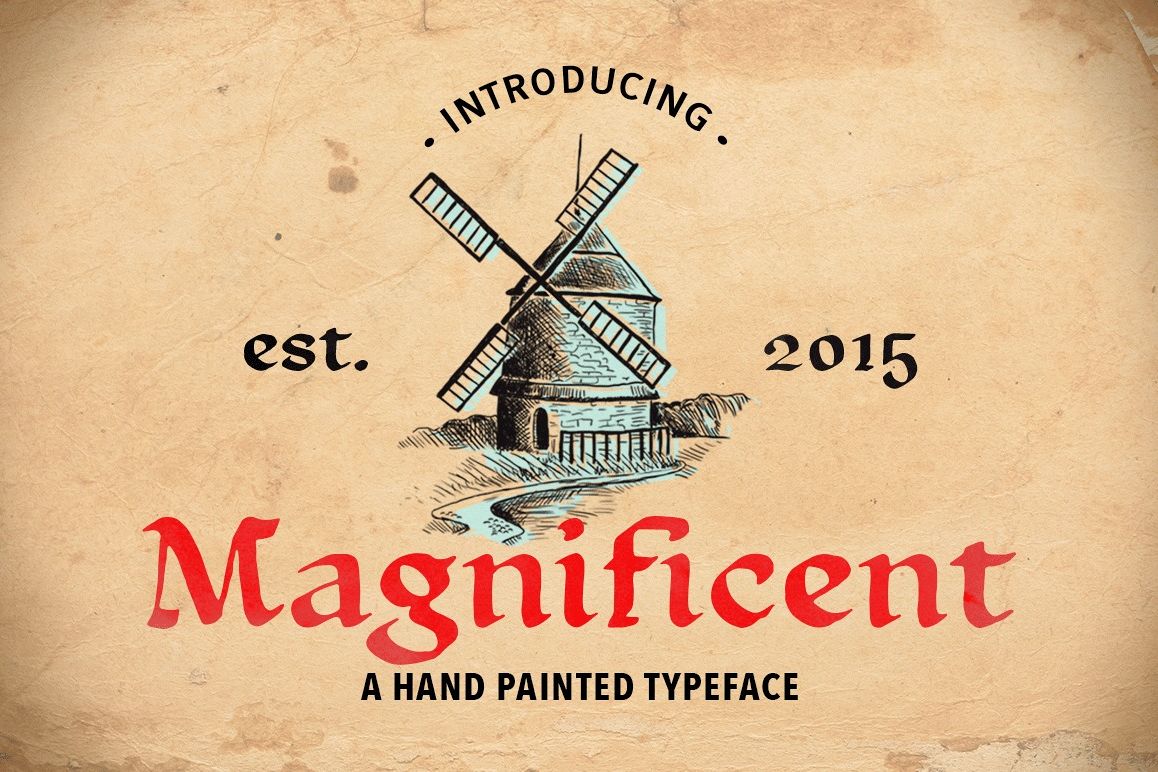
Magnificent
Hello friends! Introducing my work "Magnificent". This is ink-pen hand-maden font. In addition to, it includes very useful extra elements. Works great applied to logos, posters, magazine headers, business cards and more!
This handwritten font is perfect for:
• logos
• posters
• magazine headers
• business cards